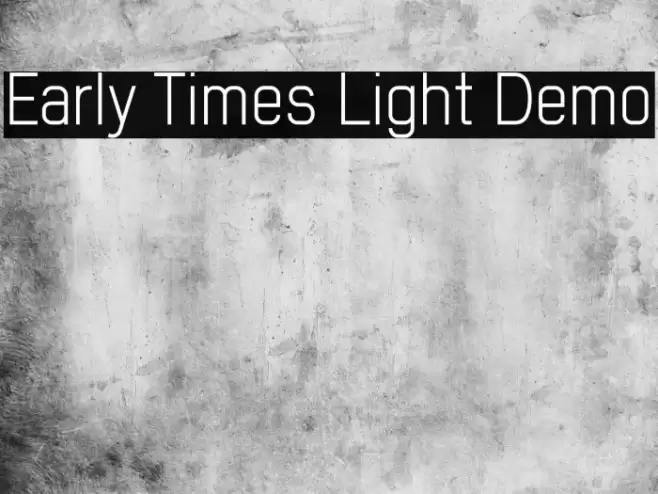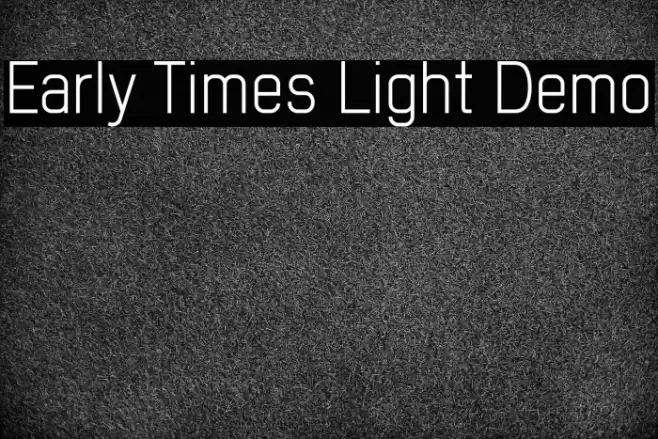
Early Times Light Demo Font
Early Times Light Demo Description
This font features a clean and modern sans-serif design with a light weight, making it ideal for minimalist and contemporary projects. The characters are evenly spaced with a normal width, providing excellent readability. The uppercase and lowercase letters maintain a consistent style, with rounded edges that add a subtle softness to the overall appearance. The numerals and special characters are designed to match the letterforms, ensuring a cohesive look across all text elements. This font's simplicity and elegance make it versatile for various design applications.
A clean, modern sans-serif font with a light weight and rounded edges from Uncategorized fonts.
- Proposed Projects: Ideal for branding, web design, editorial layouts, and minimalist posters.
- Weight: Light
- Use Case: Headlines, Body text, Logos